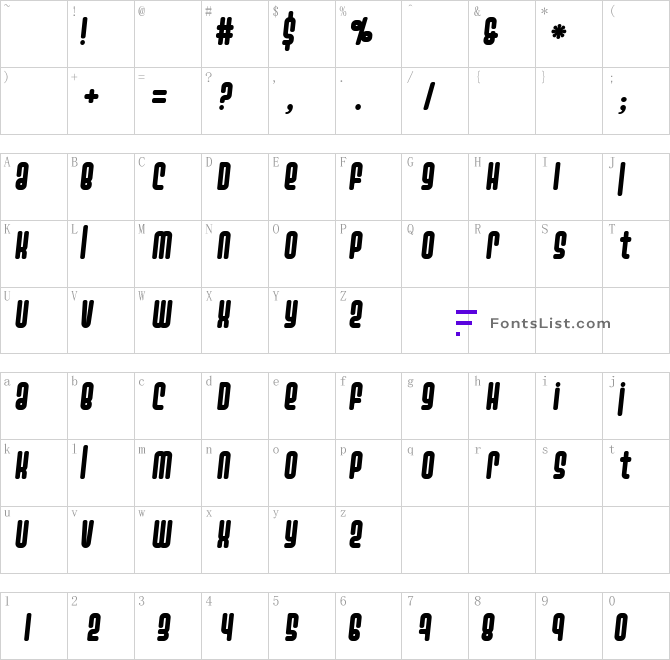
- Font Name:Ashbury
- Full Name:Ashbury Italic
Ashbury-Italic.ttf is a very beautiful artistic font, Ashbury-Italic.ttf is widely used in the design and printing of various books and pictures,Ashbury-Italic.ttf has a strong visual impact,Ashbury-Italic.ttf is a commonly used font in newspapers, magazines and books, and is used in posters, e-commerce Poster design, store design, logo design, font design and other fields.Ashbury-Italic.